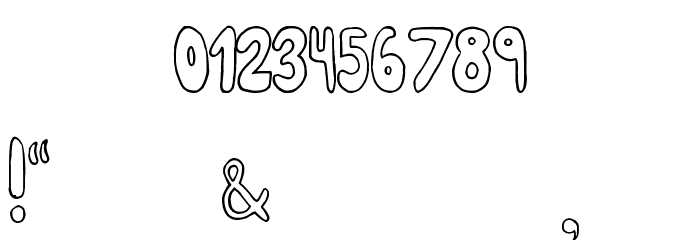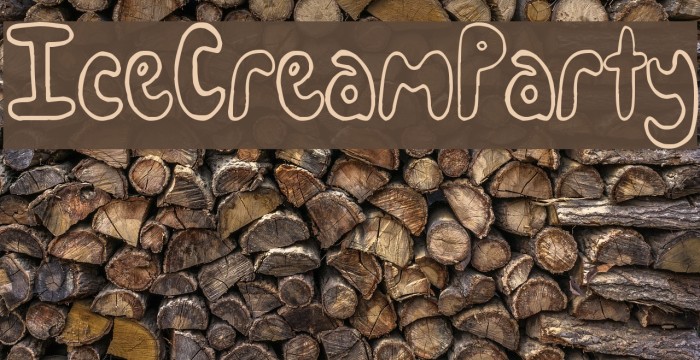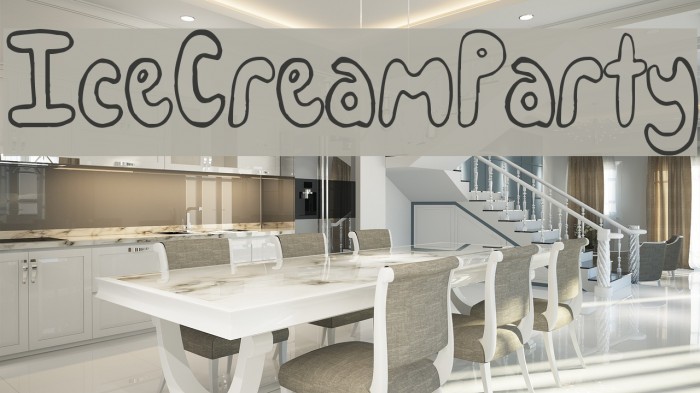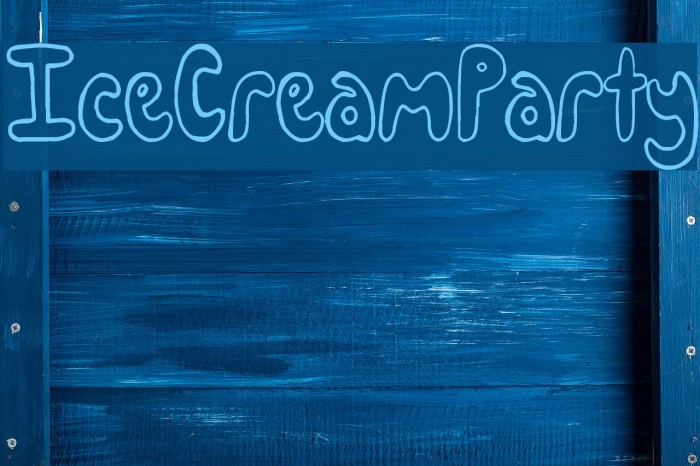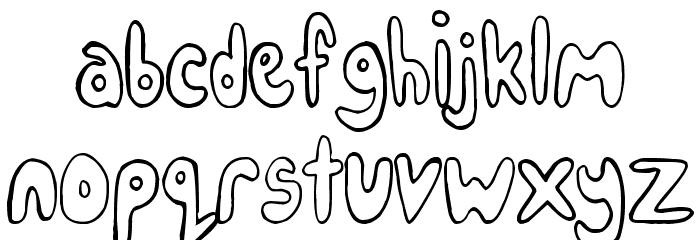
IceCreamParty Font
IceCreamParty Description
This playful and whimsical font features a bubbly, hand-drawn style that evokes a sense of fun and creativity. The characters are rounded and slightly irregular, giving them a casual and informal appearance. The uppercase and lowercase letters maintain a consistent style, with a slight variation in stroke thickness that adds to the font's charm. The numbers and special characters are designed to match the overall aesthetic, making it a cohesive choice for projects that require a lighthearted touch. The font's unique style makes it ideal for children's projects, party invitations, or any design that aims to convey a sense of joy and playfulness.
| Overall Style | Playful, Whimsical |
| Use Case | Headlines, Logos, Invitations |
| Proposed Projects | Ideal for children's books, party invitations, playful branding, and creative posters. |